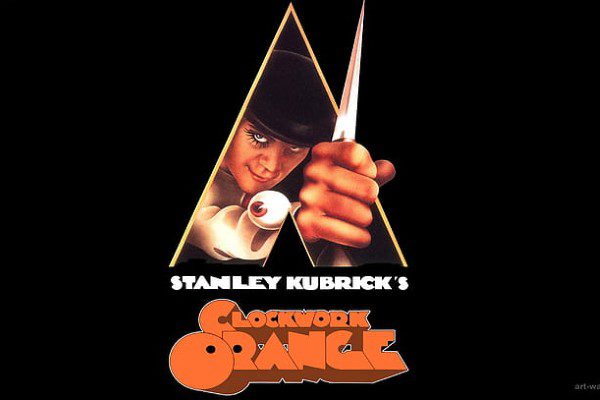
A Clockwork Orange font
A Clockwork Orange font in use
The name of the A Clockwork Orange font that looks alot like the the lettering used in the logo for this movie is a typeface by the name of Timepiece.
If you're a big fan of dystopian futures, then you'll love this A Clockwork Orange font. A full set of Lowercase, Uppercase, Numeric, and Punctuation characters are included. The movie's shocking and thought-provoking plot also showed how the fonts are designed to give the audience a feeling of the future. The fonts used in this movie are a mix of old-school and modern styles, which helps to create a unique and unforgettable look.
This font is perfect for any project that needs a bit of an edge, whether for a simple school project or something more professional such as websites and presentations. Make your projects look extra futuristic with this font!
About the A Clockwork Orange typeface
In A Clockwork Orange, the future is a bleak and violent place. Alex and his gang of "droogs" represent the generation born into a world where freedom is gone, and violence is rampant. Directed by Stanley Kubrick, A Clockwork Orange is a brutal, darkly humorous look at the future of humanity. During its release, there were polarizing reviews from critics with its unique take on delinquency from different perspectives. Despite that, the movie became a box office hit, earning $41 million in the U.S alone and more than $70 million worldwide. It received four nominations for the 44th Academy Awards and is currently touted as 'culturally, historically, or aesthetically significant' under the United State National Film Registry last 2020.